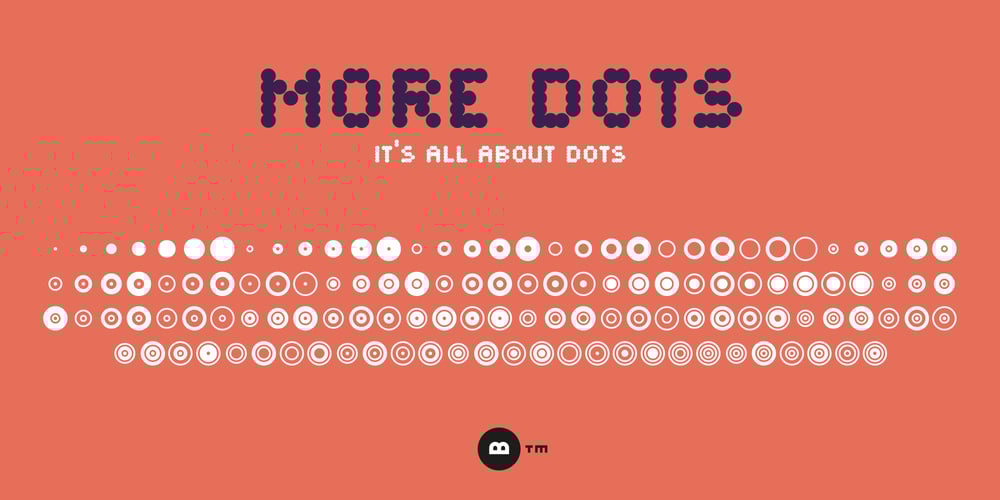
More Dots
More Dots font
More Dots Font Family was designed by Hermen Grasman and published by Beware of the moose. More Dots contains 1 styles and family package options. It is not really a font, they are more icons. Based on a grid of seven circles al 127 possibilities – filled an unfilled. Use it decorative or just for fun.